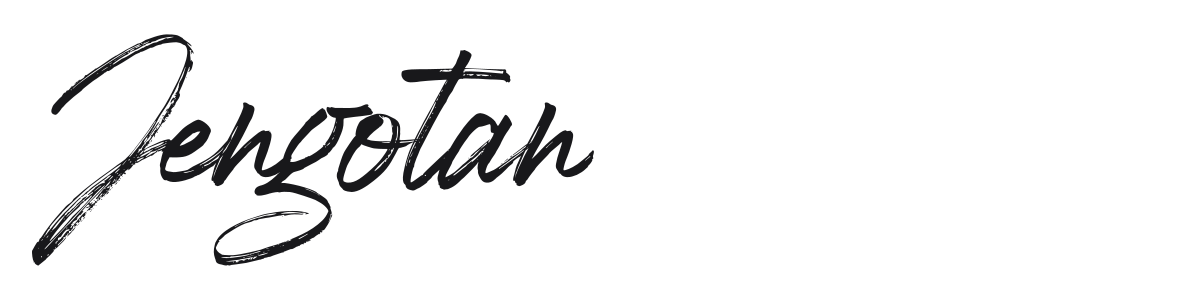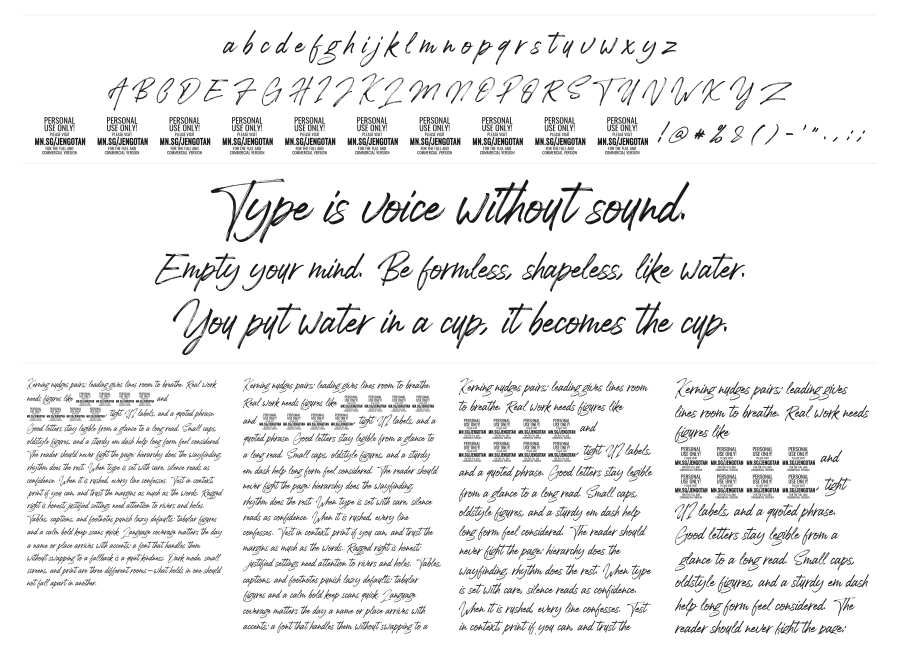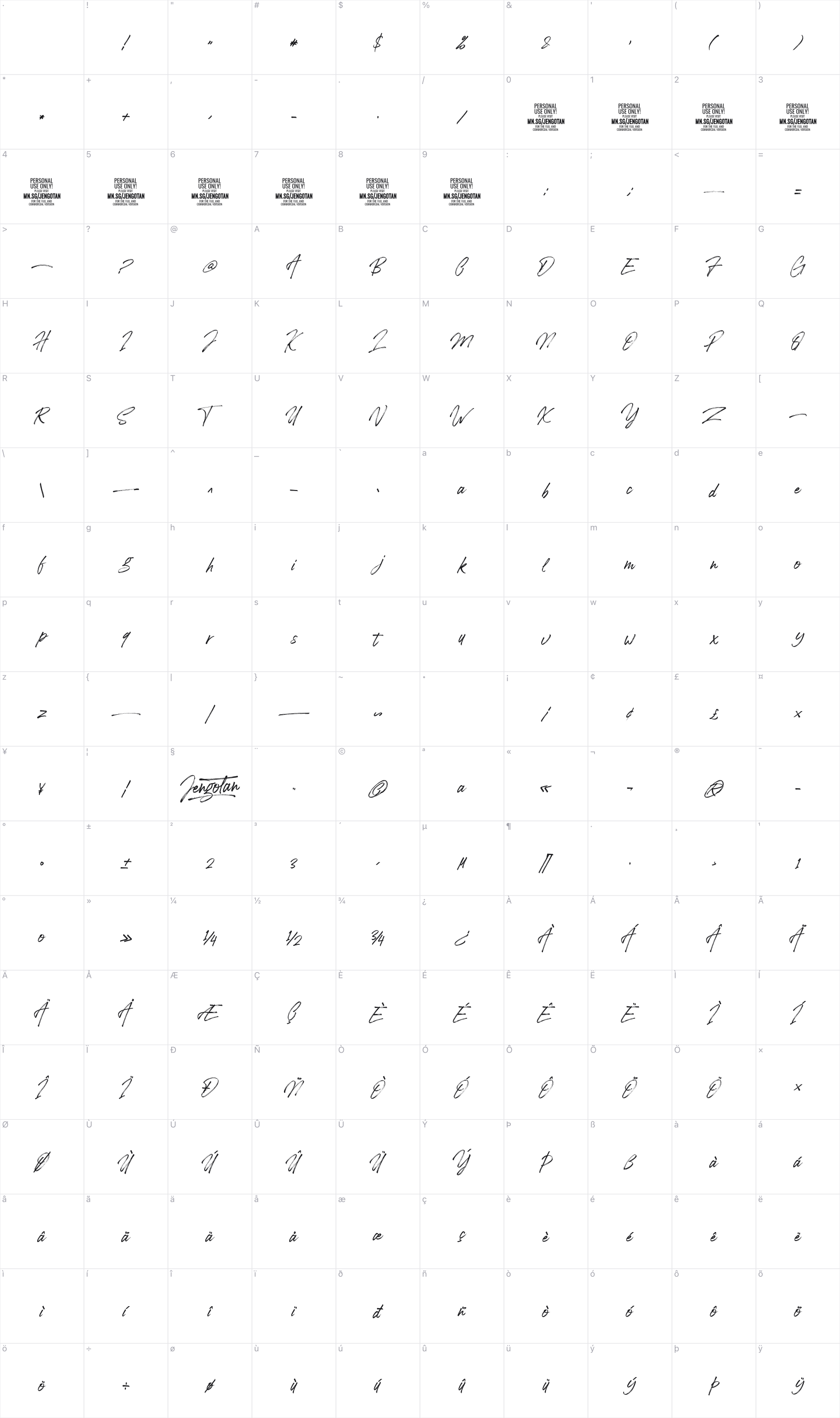
Jengotan
Jengotan is a hand-painted brush script scanned directly from paper, with bristle textures and stroke irregularities left fully intact. The contrast between heavy downstrokes and wispy hairlines gives it a raw, kinetic quality that distinguishes it from smoother digital scripts. A built-in swash system lets you trigger alternate flourish characters mid-word using bracket characters.